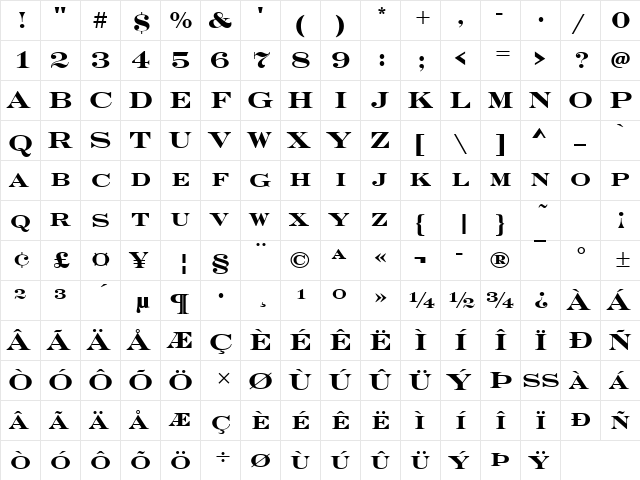
EngraversD Bold
Design Context for EngraversD Typeface
EngraversD is a composed and adaptable typeface that performs quietly and consistently across a wide range of design contexts. The heavy weight commands attention and anchors typographic hierarchies.
Pro Tip: Use EngraversD in both headline and body roles to test its range before committing to a single application.